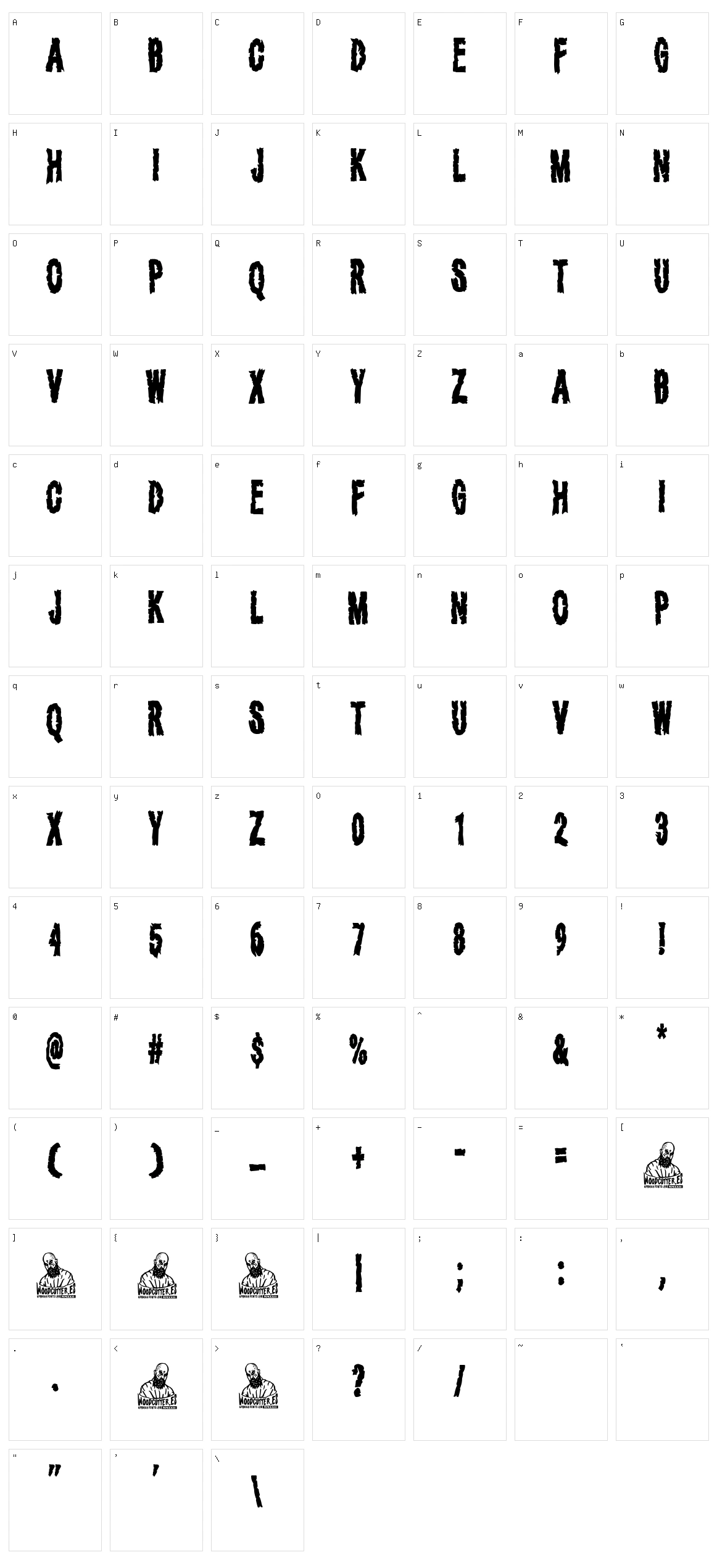
The free font White Night Club is carefully designed by Woodcutter, showcasing a thoughtful balance of creativity and usability and falls under the Horror font style. When you download the ZIP file, it contains only 66.09 KB of font files, making it lightweight and quick to download. Please review the license details below to understand permitted usage and distribution rights. If license information is not available, we recommend using this font for personal projects only or contacting the author directly for commercial usage permissions.